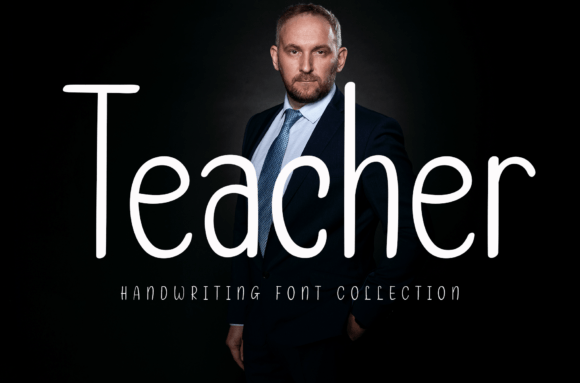
Looking for the best font for your brochure? Look no further than Teacher Font! This display font is perfect for anyone who wants to add a touch of cuteness and casualness to their designs. Created by Creatype Designer, Teacher Font is the ultimate choice for those who want to create a friendly, welcoming vibe.
With its incredibly friendly feel, Teacher Font is the ideal choice for anyone who wants to make their project stand out. Whether you're working on Instagram posts, calligraphy scripts, or any other creative project, this font will turn your ideas into true pieces of art.
So why should you choose Teacher Font over other display fonts? First of all, it's incredibly versatile. You can use it for a wide range of projects, from brochures to posters to websites. And thanks to its cute and casual style, it's perfect for creating a welcoming and friendly vibe that will grab your audience's attention.
But that's not all. Teacher Font is also incredibly easy to read, which makes it perfect for any project where clarity is key. And with its eye-catching design, it's sure to make your project stand out from the crowd.
So if you're looking for the best font for your brochure, look no further than Teacher Font. With its friendly feel, versatile design, and easy-to-read style, it's the ultimate choice for anyone who wants to create a piece of art that truly stands out. Download Teacher Font today and start bringing your creative ideas to life!